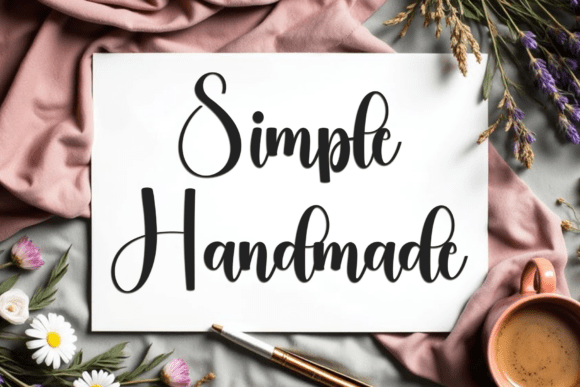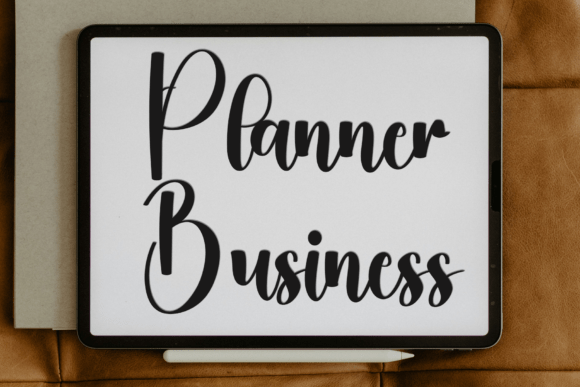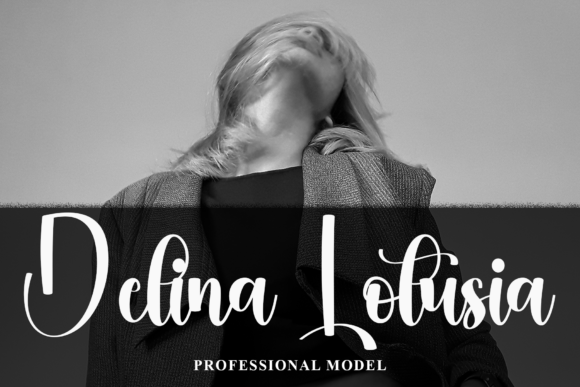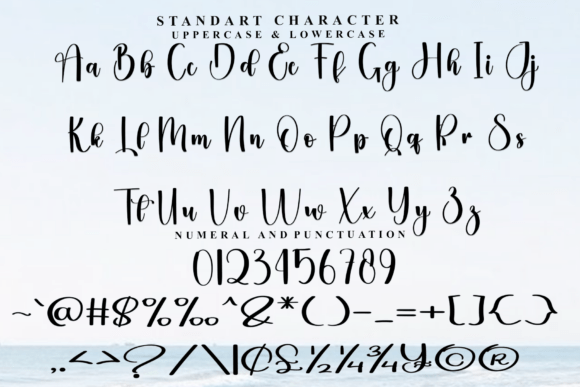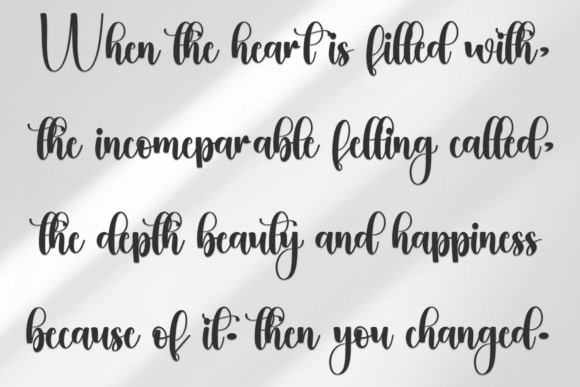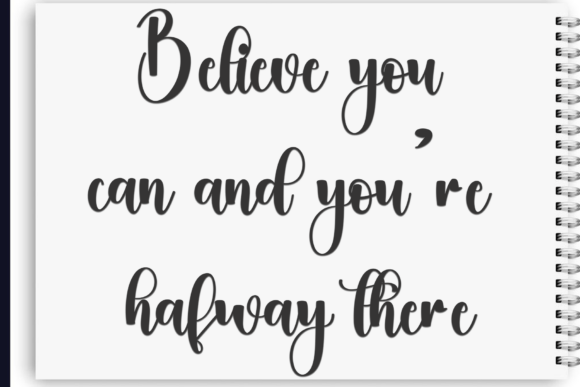
Introducing Delightful Font: Elevate Your Designs with a Unique Touch
In the world of design, typography plays a crucial role in conveying messages, evoking emotions, and creating a lasting impression. A font can make or break a design, and that’s where Delightful Font comes in – a beautiful, eye-catching, and versatile font that is sure to take your creative projects to the next level. With its soft, unique touch and distinctive strokes, Delightful Font is the perfect addition to any designer’s toolkit.
The Characteristics of Delightful Font
Delightful Font boasts a range of characteristics that set it apart from other fonts. Its soft and unique touch gives it a special charm, making it perfect for designs that require a personal and creative approach. The font’s distinctive strokes add a touch of elegance and sophistication, making it suitable for a wide range of applications, from crafts and design projects to artistic and creative works.
One of the standout features of Delightful Font is its versatility. With a wide range of characters, this font can be used in various contexts, from titles and headings to body text and captions. Whether you’re working on a graphic design project, crafting a handmade card, or creating digital content, Delightful Font is the perfect choice. Its unique style and charm will add a touch of personality to your work, making it more engaging and appealing to your audience.
Delightful Font is a dream come true for designers and crafters. Its unique style and versatility make it perfect for a wide range of creative projects, from graphic design and illustration to crafting and DIY projects. Whether you’re a professional designer or a hobbyist, this font will help you create stunning designs that showcase your creativity and skill.
Why Choose Delightful Font?
So, why choose Delightful Font for your next design project? Here are just a few reasons:
- Unique and eye-catching style: Delightful Font’s soft, unique touch and distinctive strokes make it stand out from other fonts.
- Versatility: With a wide range of characters, this font can be used in various contexts and applications.
- Perfect for designers and crafters: This font is ideal for designers and crafters who want to add a touch of personality and creativity to their work.
Tips for Using Delightful Font
Here are a few tips for using Delightful Font in your design projects:
- Experiment with different sizes and styles: Delightful Font looks great in various sizes and styles, so don’t be afraid to experiment and find the perfect combination for your design.
- Pair it with other fonts: Delightful Font can be paired with other fonts to create a unique and interesting contrast.
- Use it for titles and headings: Delightful Font’s distinctive strokes make it perfect for titles and headings, adding a touch of elegance and sophistication to your design.
In conclusion, Delightful Font is a beautiful, eye-catching, and versatile font that is perfect for designers and crafters. Its unique style, versatility, and compatibility make it an ideal choice for a wide range of creative projects. Whether you’re working on a graphic design project, crafting a handmade card, or creating digital content, Delightful Font is sure to elevate your designs and make them more appealing to your audience.